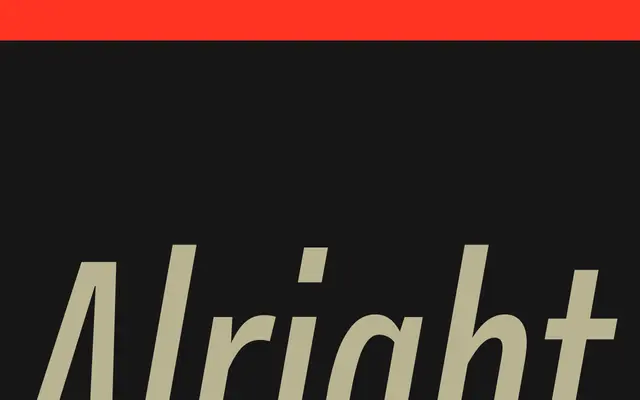
Alright
Okay Type · 2009
A revised and expanded version of Alright Sans spanning four widths and nine weights, balancing humanist warmth against neo-grotesque restraint.
Originally released in 2009 and winning a Communication Arts type award, Alright has been revised and expanded into a large family covering Normal, Narrow, Condensed and Compressed widths, each running from ExThin to Ultra with matching italics. The design sits between the open, readable qualities of a humanist sans and the clean economy of a neo-grotesque, producing a tone that reads as professional without being cold. Extensive language support and OpenType features make it practical across editorial, branding and UI work.
Described by the foundry as a blend of humanist sans warmth and neo-grotesque clarity, placing it squarely in the humanist sans subcategory with grotesk discipline underlying the forms.